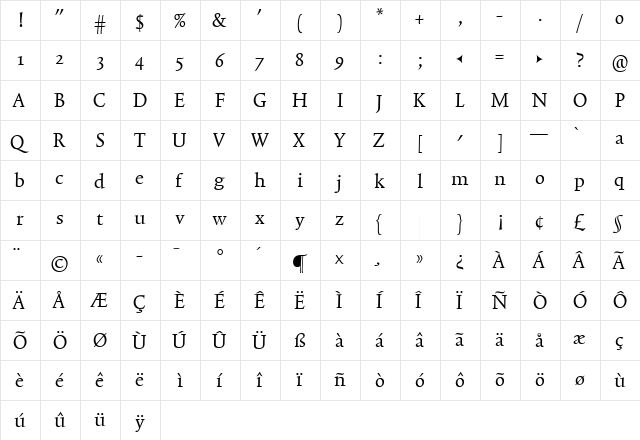
TriniteNo1 RomanCondensed
| Foundry | Copr. The Ensched Font Foundry |
Design Context for TriniteNo1 Typeface
TriniteNo1 takes a measured approach to typography — its balanced proportions and neutral character make it a reliable workhorse for both digital and print work. The condensed width makes it efficient for tight spaces without sacrificing legibility.